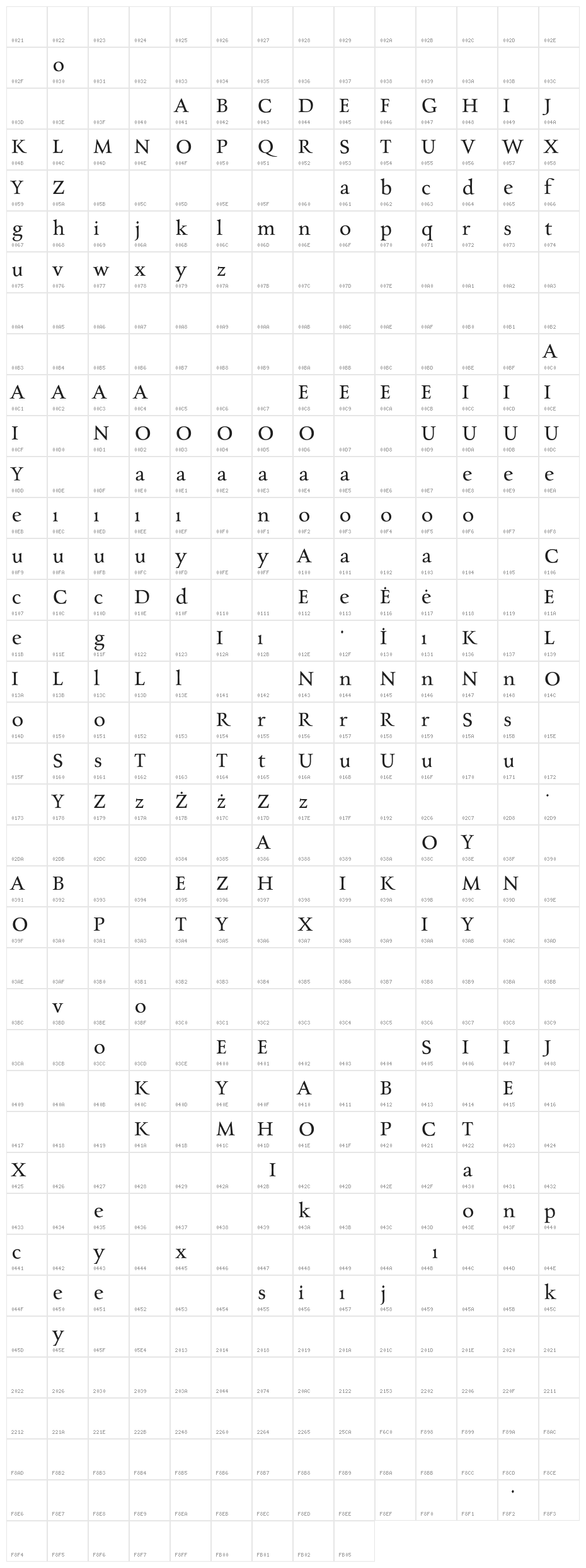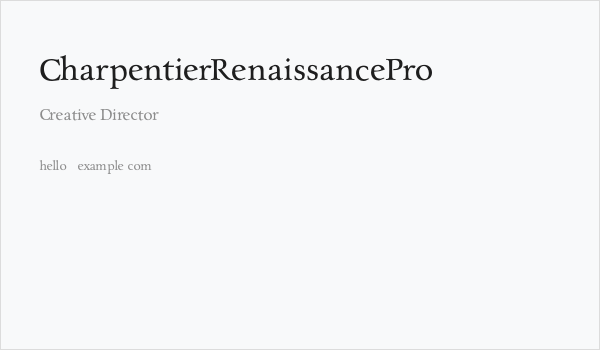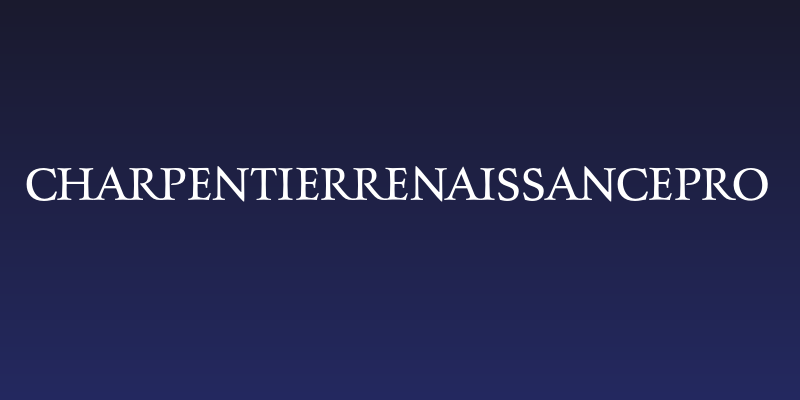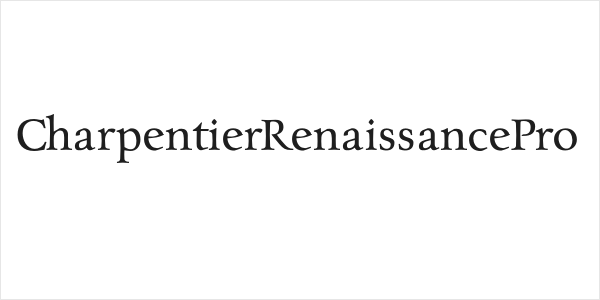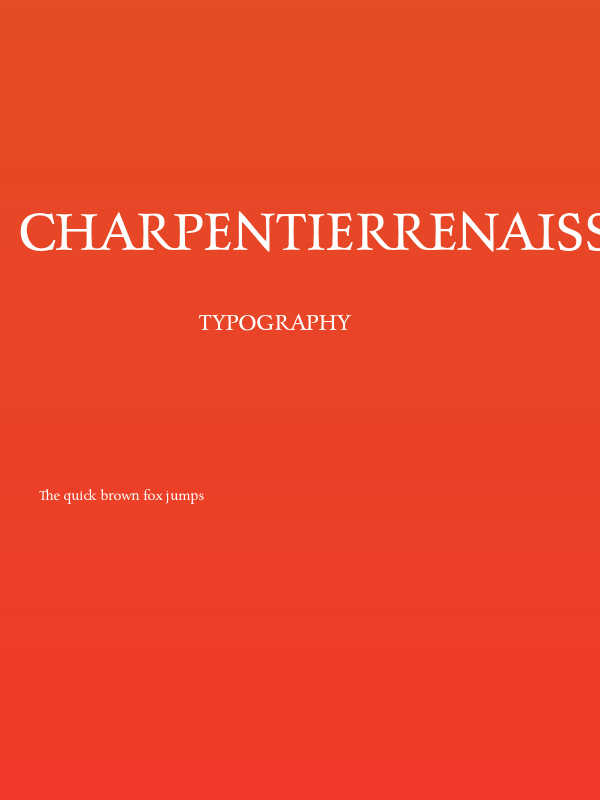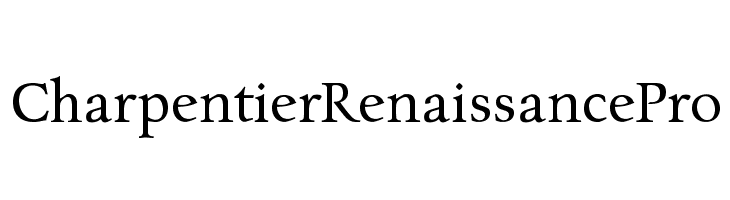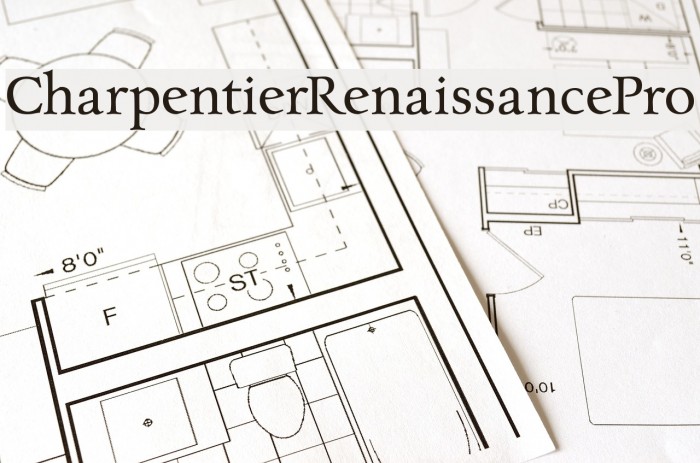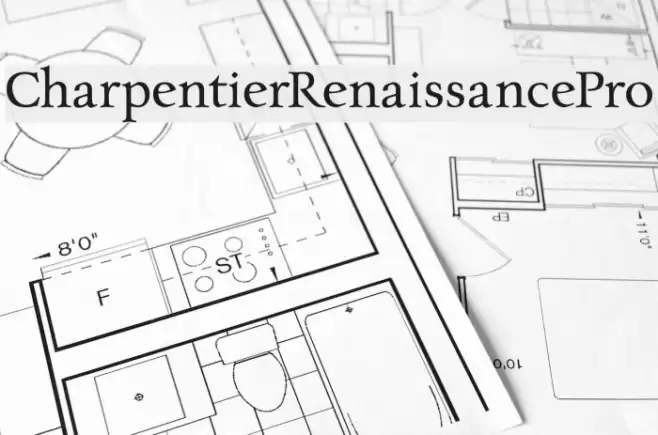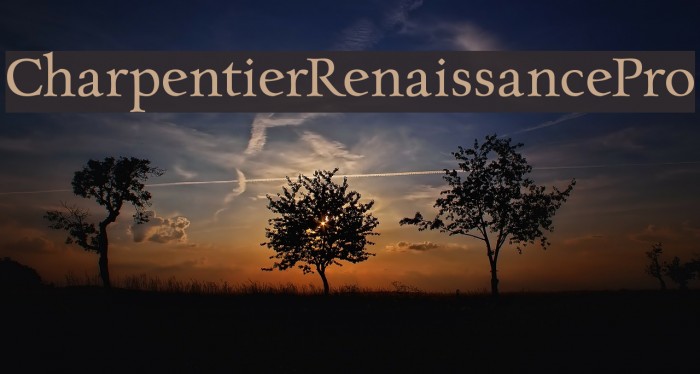
CharpentierRenaissancePro Font
CharpentierRenaissancePro Description
This font exhibits a classic and elegant serif style, characterized by its refined and sophisticated appearance. The letterforms are well-balanced with a slight contrast in stroke thickness, adding a touch of elegance and readability. The serifs are pronounced yet not overly exaggerated, providing a timeless and traditional feel. The overall design is reminiscent of Renaissance typography, making it suitable for projects that require a historical or formal aesthetic. The spacing between characters is normal, ensuring clarity and legibility across various sizes.
| Overall Style | Classic |
| Use Case | Headlines, Body text, Logos |
| Proposed Projects | Ideal for book covers, formal invitations, historical documents, and elegant branding projects. |